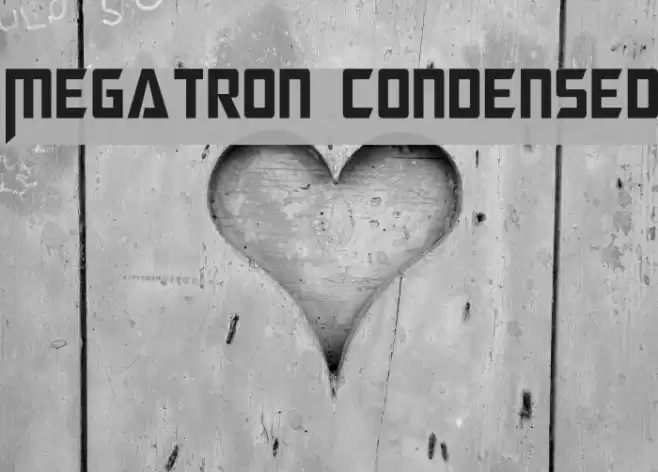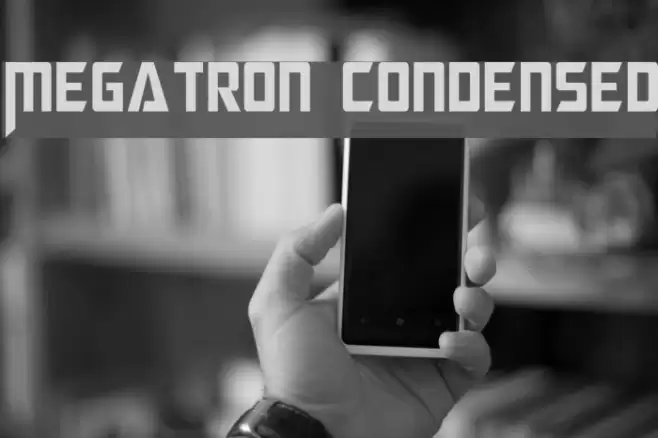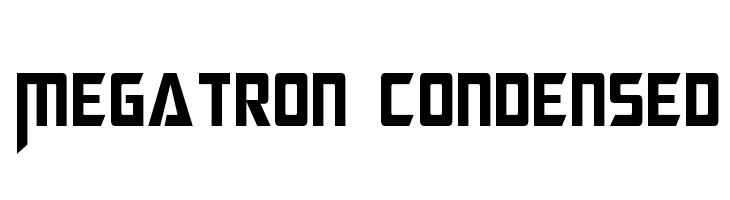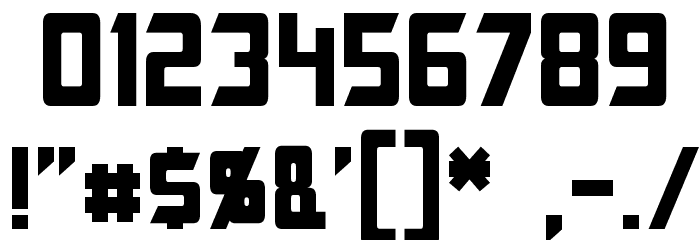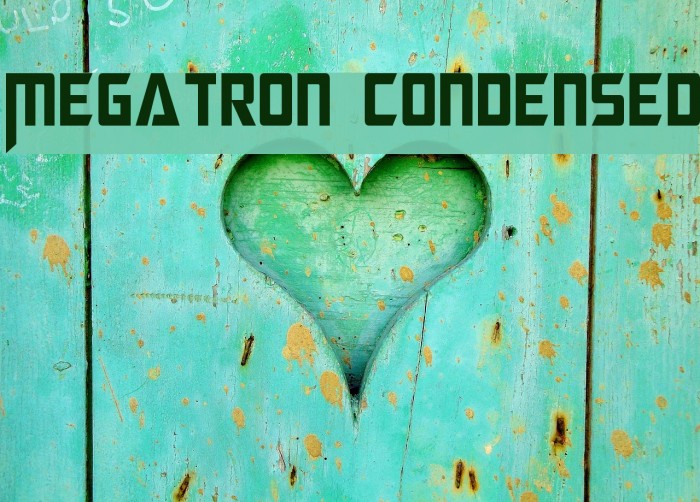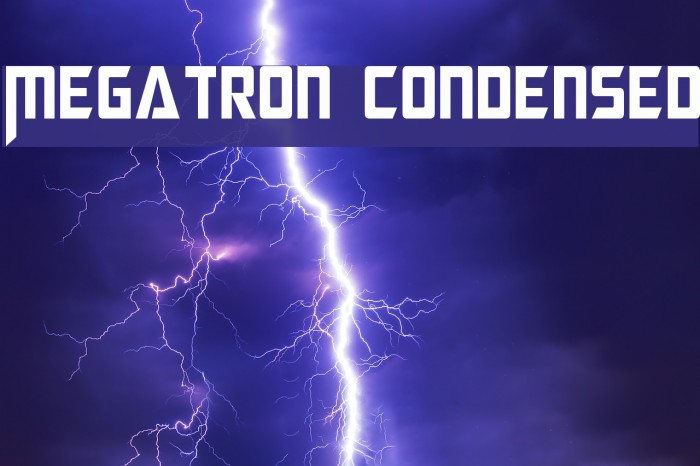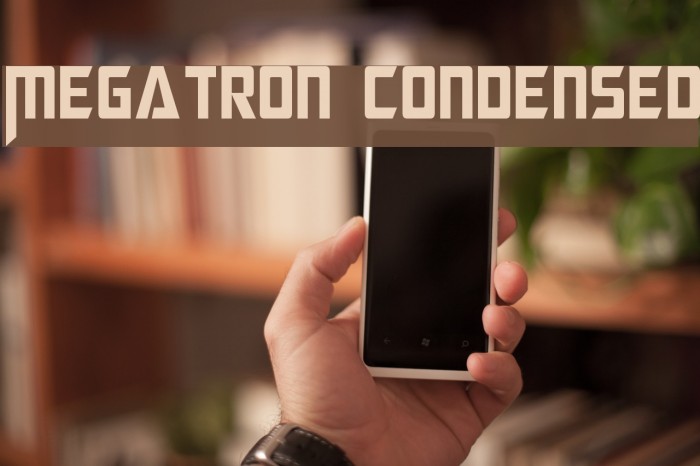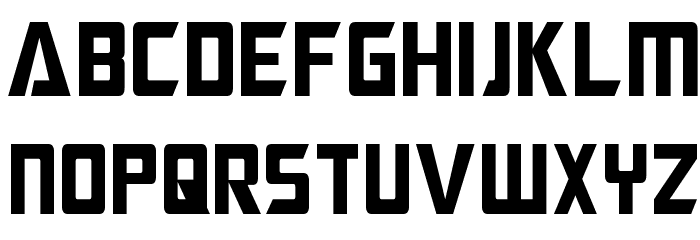
Megatron Condensed Font
Megatron Condensed Description
This font features a bold, geometric design with sharp angles and a futuristic aesthetic. The uppercase letters are distinct with angular cuts, giving a sense of movement and modernity. The lowercase letters maintain the same angular style, ensuring consistency across the typeface. The numbers are equally bold and geometric, fitting seamlessly with the overall design. Special characters are crafted with the same attention to angular detail, making them stand out while remaining cohesive with the rest of the font. This typeface is highly legible and impactful, suitable for projects that require a strong visual presence.
A bold, geometric font with sharp angles and a futuristic style from Uncategorized fonts.
- Proposed Projects: Ideal for sci-fi movie posters, video game titles, tech branding, and futuristic-themed designs.
- Overall Style: Futuristic, Modern